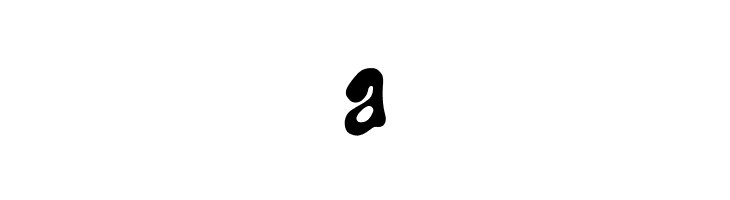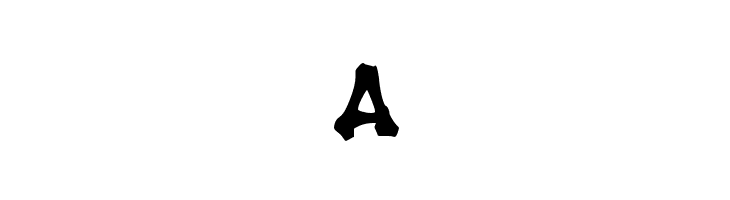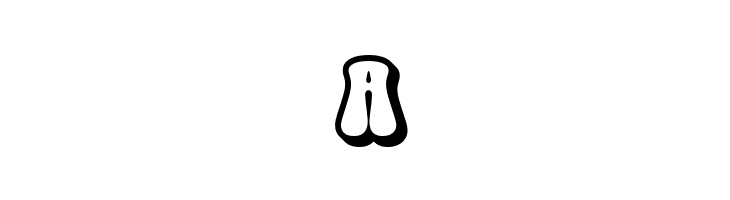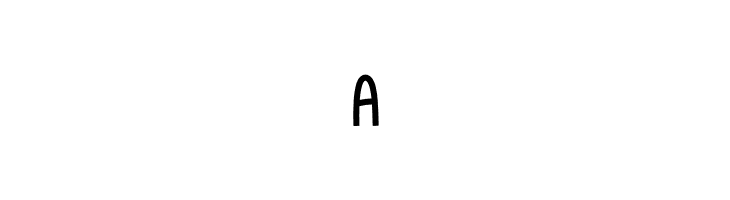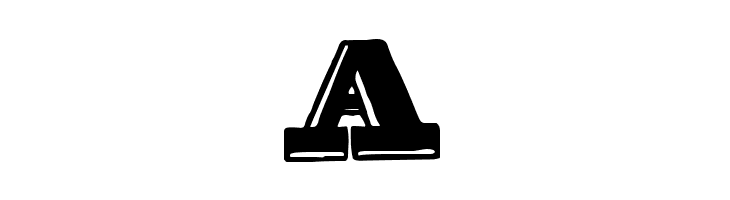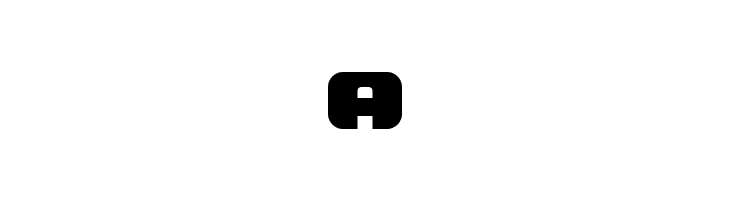
A bold, playful font with rounded, bubbly characters perfect for creative projects.
A bold, distressed font with a grunge aesthetic and textured appearance.
A bold, playful font with rounded, bubbly characters ideal for retro and whimsical designs.
A playful, bold outline font with rounded, bubbly characters.
A bold, playful font with a bubbly, glossy appearance.
A sleek, modern font with clean lines and geometric shapes.
A bold, italicized script font with a textured, hand-drawn look.
A bold, playful font with a retro, groovy aesthetic.
A bold, textured font with a distressed, vintage style.
A playful, handwritten-style font with rounded, consistent strokes.
A bold, playful font with a retro, extruded style and tight character spacing.
A bold, retro-inspired font with a playful, bubbly design.
A bold, playful display font with hand-drawn, retro-inspired shapes.
A bold, festive display font with whimsical, decorative serifs.
A playful, bold font with irregular, hand-drawn shapes and thick strokes.
A bold, bubbly, and playful font with a whimsical and lively appearance.
A playful, bold font with rounded, bubbly characters and a retro-modern style.
A bold, playful font with thick, rounded characters and a retro vibe.
A bold, playful, hand-drawn font with thick, uneven strokes and a whimsical style.
A bold, vintage-style font with a three-dimensional shadow effect.
A playful, retro font with bold, rounded characters and a fluid, dynamic style.
A bold, playful font with a groovy, retro vibe and hand-drawn appearance.
A playful, wavy font with a bold, fluid design.
A bold, geometric font with a futuristic, angular design.
A geometric, angular font with a futuristic and bold design.
A geometric, hollow font with angular lines and a modern, futuristic style.
A bold, playful font with a melting, fluid design.
A bold, playful font with irregular, wavy strokes and a hand-drawn feel.
A bold, rounded font with a playful and modern aesthetic.
A playful, bold 3D font with rounded edges and a cartoonish style.